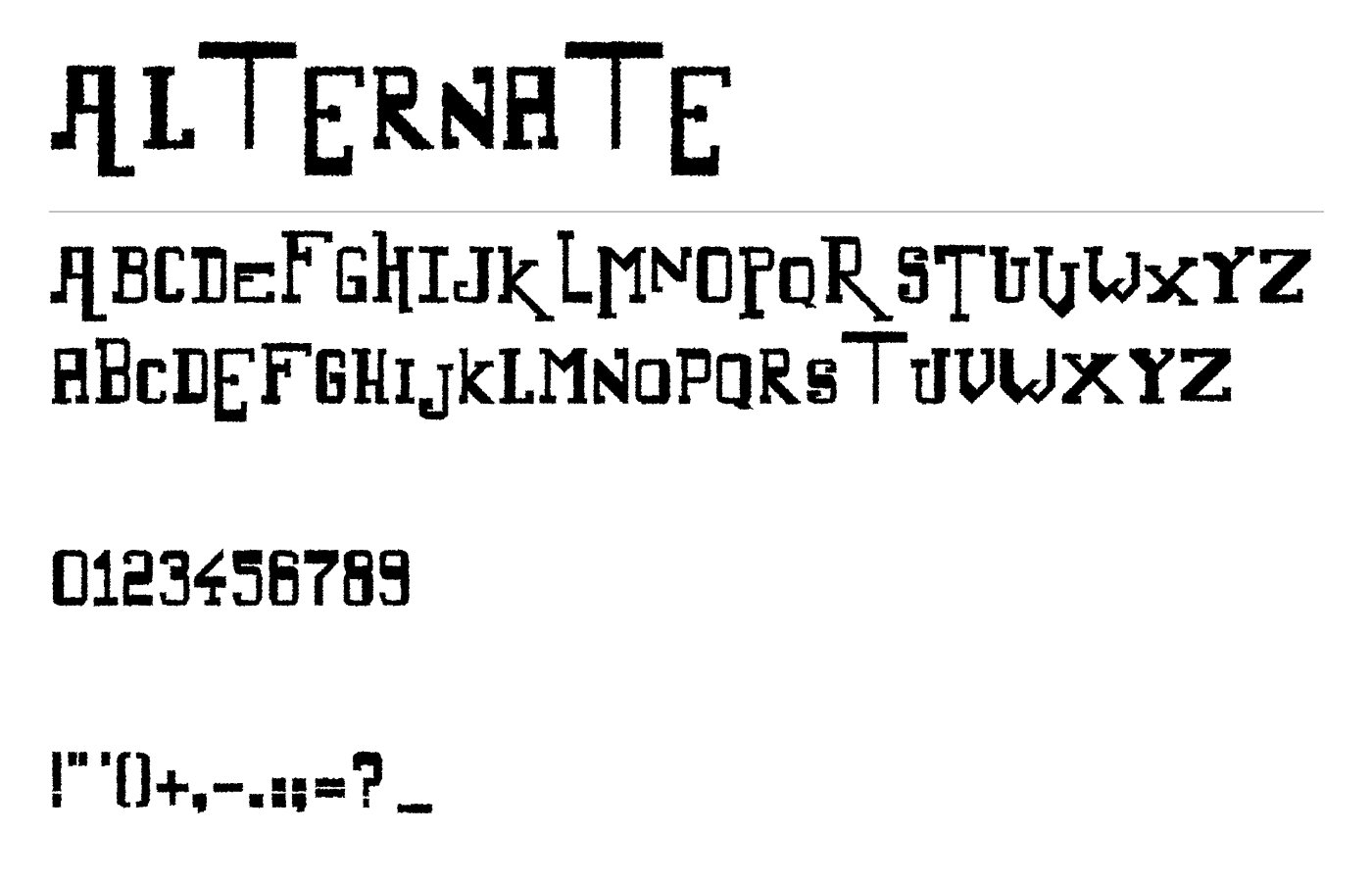
Alternate Font is a distinctive, narrow sans serif typeface with a quirky, vintage vibe. Its irregular stroke widths and slightly rough, hand-crafted appearance give it a playful, artistic charm suited for creative headlines, logos, and posters that want to stand out with personality and character. This font works well in expressive designs where uniqueness and an unconventional feel are key.
Alternate Font
About Alternate Font